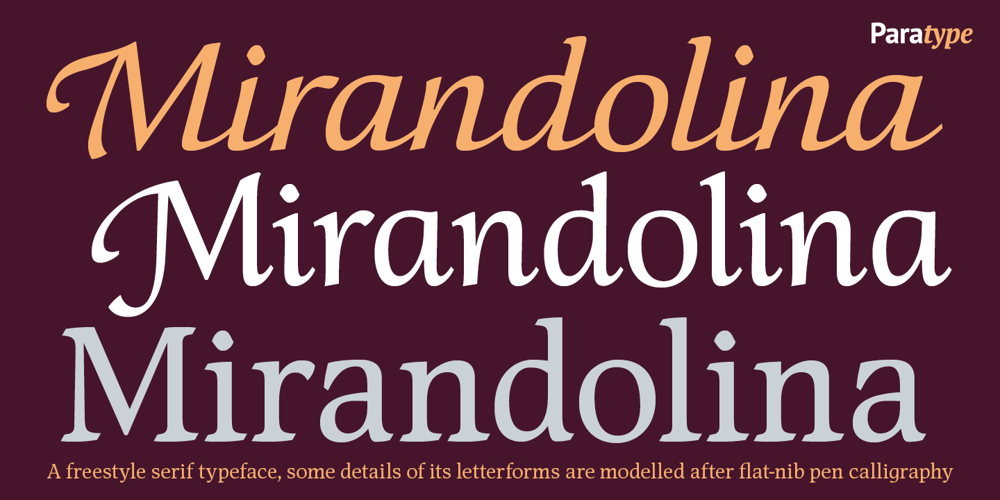
Mirandolina
Mirandolina font
Mirandolina Font Family was designed by Natalia Vasilyeva and published by ParaType. Mirandolina contains 7 styles and family package options. Paratype introduces Mirandolina — a versatile serif typeface inspired by flat-nib pen calligraphy, featuring serifs with slanted ends and cutting terminals. It also includes three decorative calligraphic versions with swashes and connecting elements. Mirandolina is suitable for both text and display typography.Designed by Natalya Vasilyeva and licensed by ParaType in 2007.And if you need font files in different formats, or want to test out this font, just drop us a line at fonts@paratype.net, and we’ll work something out.